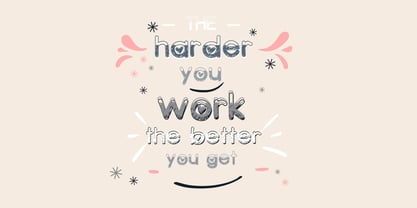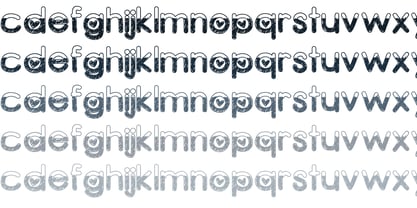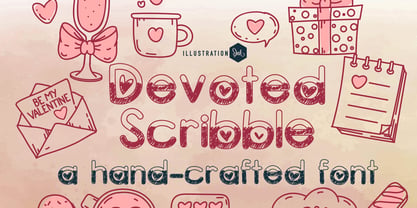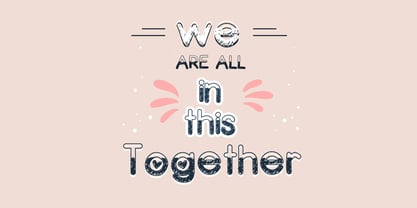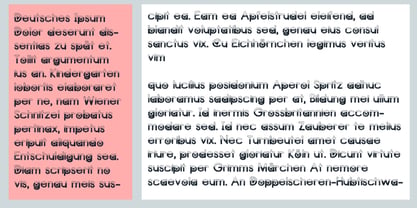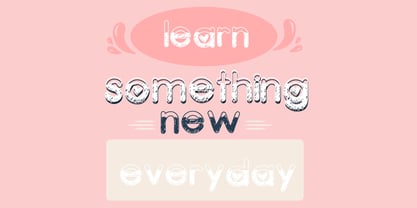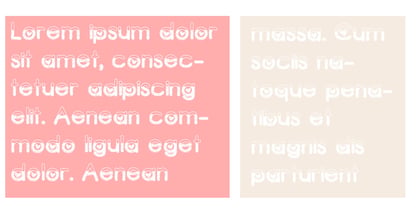
ZP Devoted Scribble
Die Schriftfamilie ZP Devoted Scribble wurde von Illustration Ink entworfen und von Illustration Ink veröffentlicht. ZP Devoted Scribble enthält 6 Stile und Familienpaketoptionen. Mehr über diese Familie
This hand-crafted font is a doodled font filled with scribbles and hearts. Hand-crafted fonts can be either formal or informal, and they can be used for a variety of purposes. Some of the characteristics of handwritten fonts include: The letters are not perfectly uniform in size or shape. There may be slight variations in the spacing between letters and words. The font may have a "wiggly" or "squiggly" appearance. The font may be difficult to read at small sizes. Handwritten fonts can be a great way to add a casual touch to your designs. They can also be used to create a sense of nostalgia or whimsy. However, it is important to choose a handwritten font that is appropriate for the project you are working on. A formal handwritten font may not be appropriate for a casual invitation, while an informal handwritten font may not be appropriate for a corporate document.
ZP Devoted Scribble